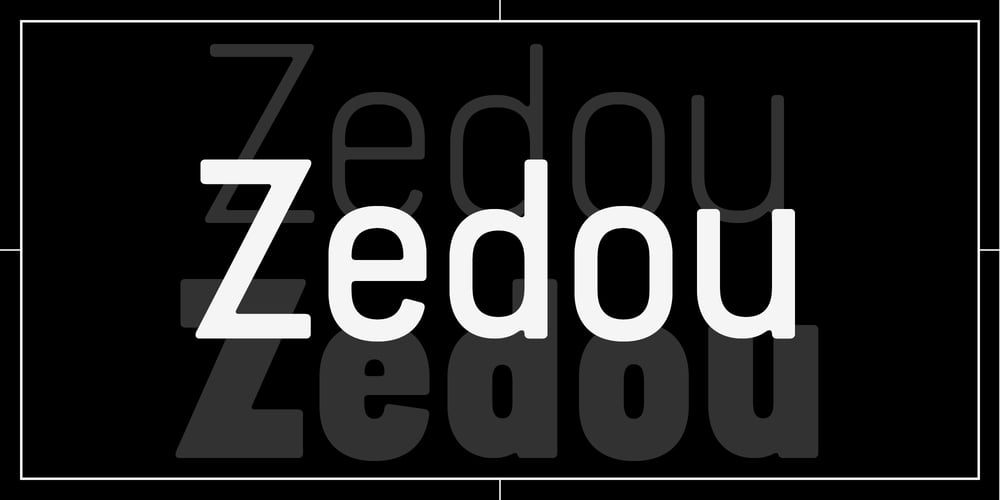
Zedou Font Family was designed by Tobias Kvant and published by Kvant. Zedou contains 4 styles and family package options. Zedou was inspired by old Art Deco flavoured signage from the former French colony of Madagascar. It has a mechanical yet organic feel to it, and consists of four display weights covering Latin Pro.